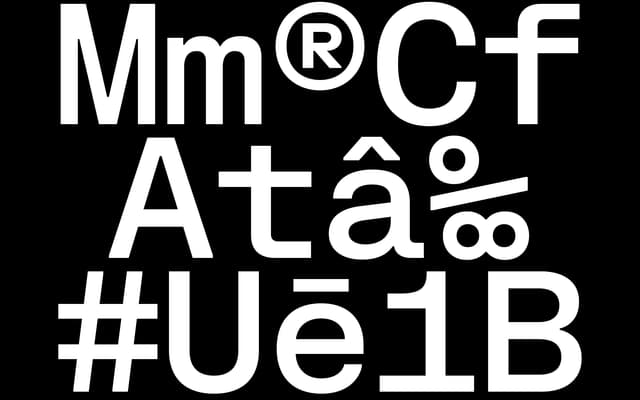
FK Grotesk
Florian Karsten · 2018
A rigidly mechanical grotesque by Florian Karsten, first released in 2018 and completely redrawn in 2021 across a full weight range with italic, semi-mono and mono companions.
Originally drawn in 2014 and tested across live projects before its 2018 release, FK Grotesk was fully redrawn in 2021 to cover thin through black with matching italics. Sharp corners and subtle ink traps give it character at large sizes without undermining its legibility at text sizes. The family extends into semi-mono and mono styles, and the whole range is available as a three-axis variable font, covering Latin Extended-A and Vietnamese.
A mechanically constructed grotesque with sharp corners and ink traps, sitting firmly in the grotesque sans-serif tradition with a rigid, systematic appearance rather than humanist warmth.